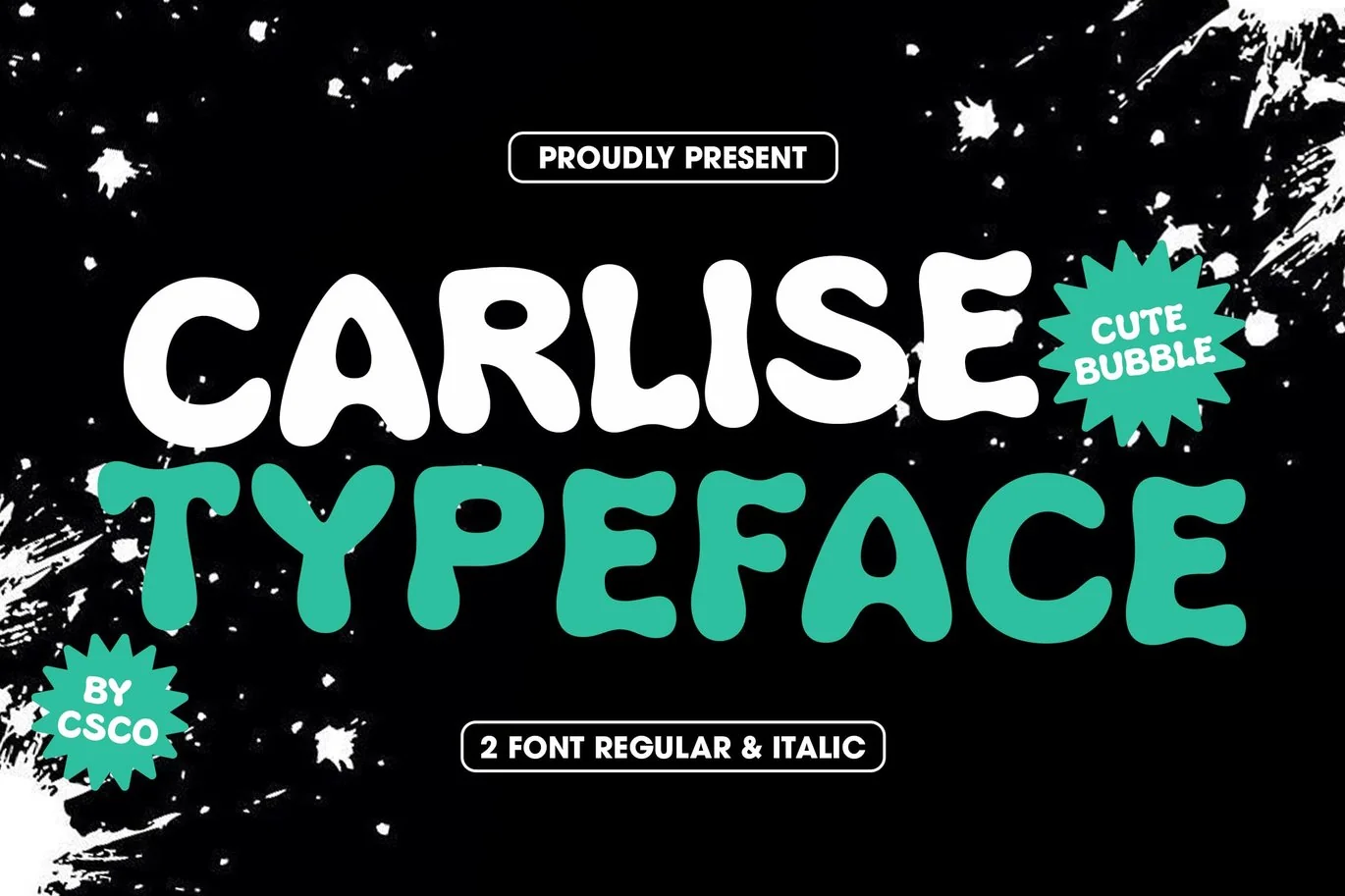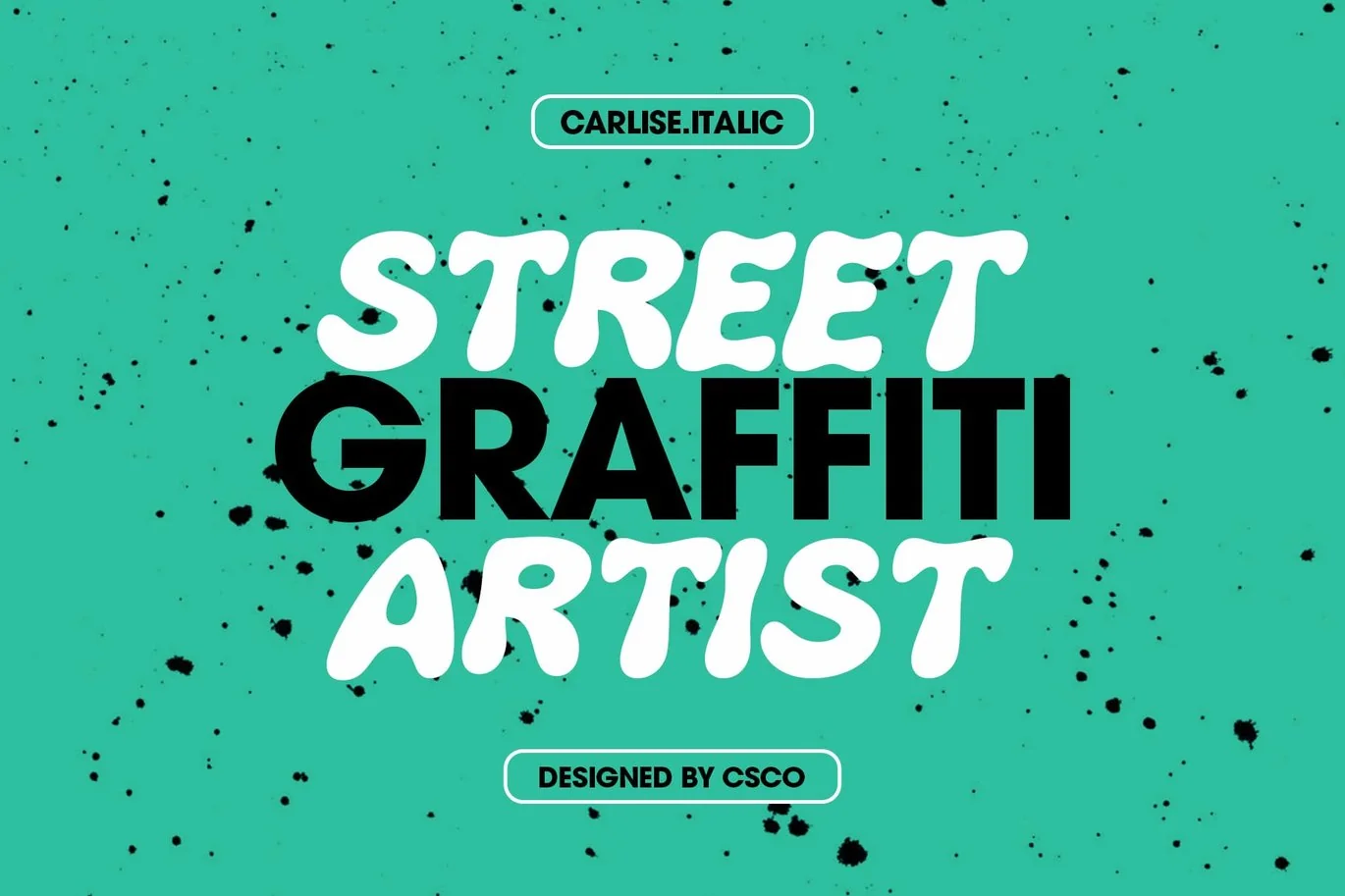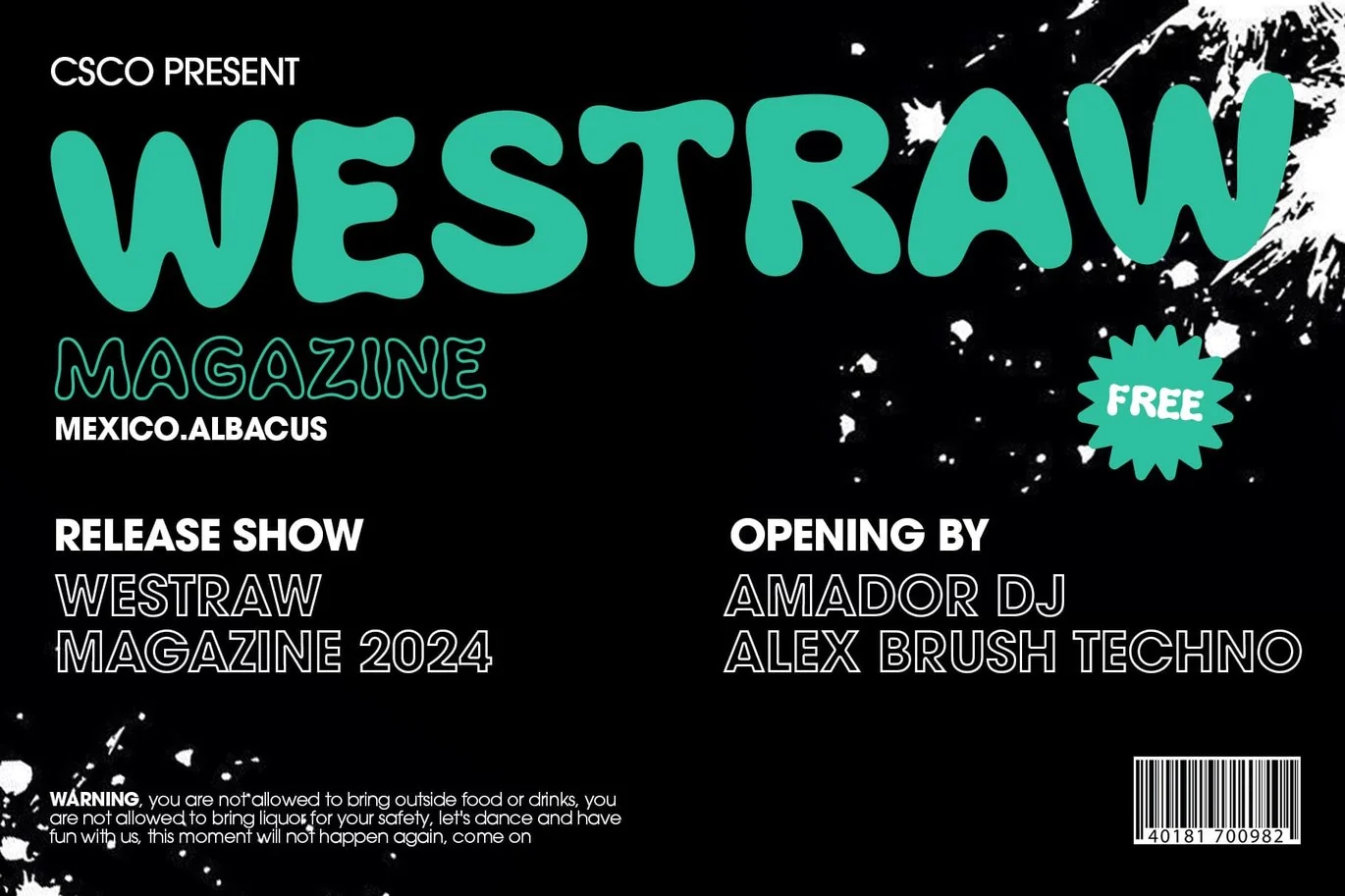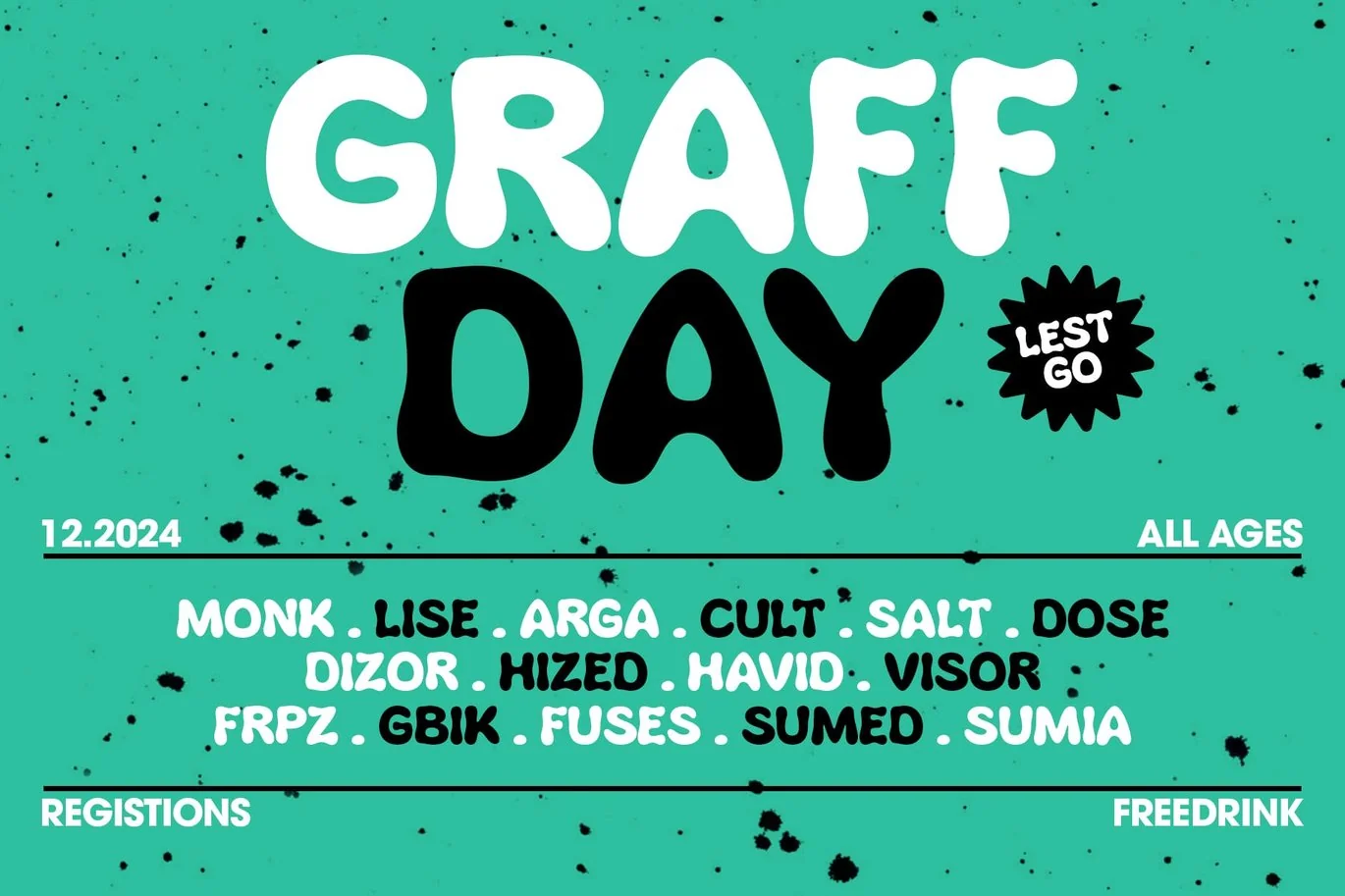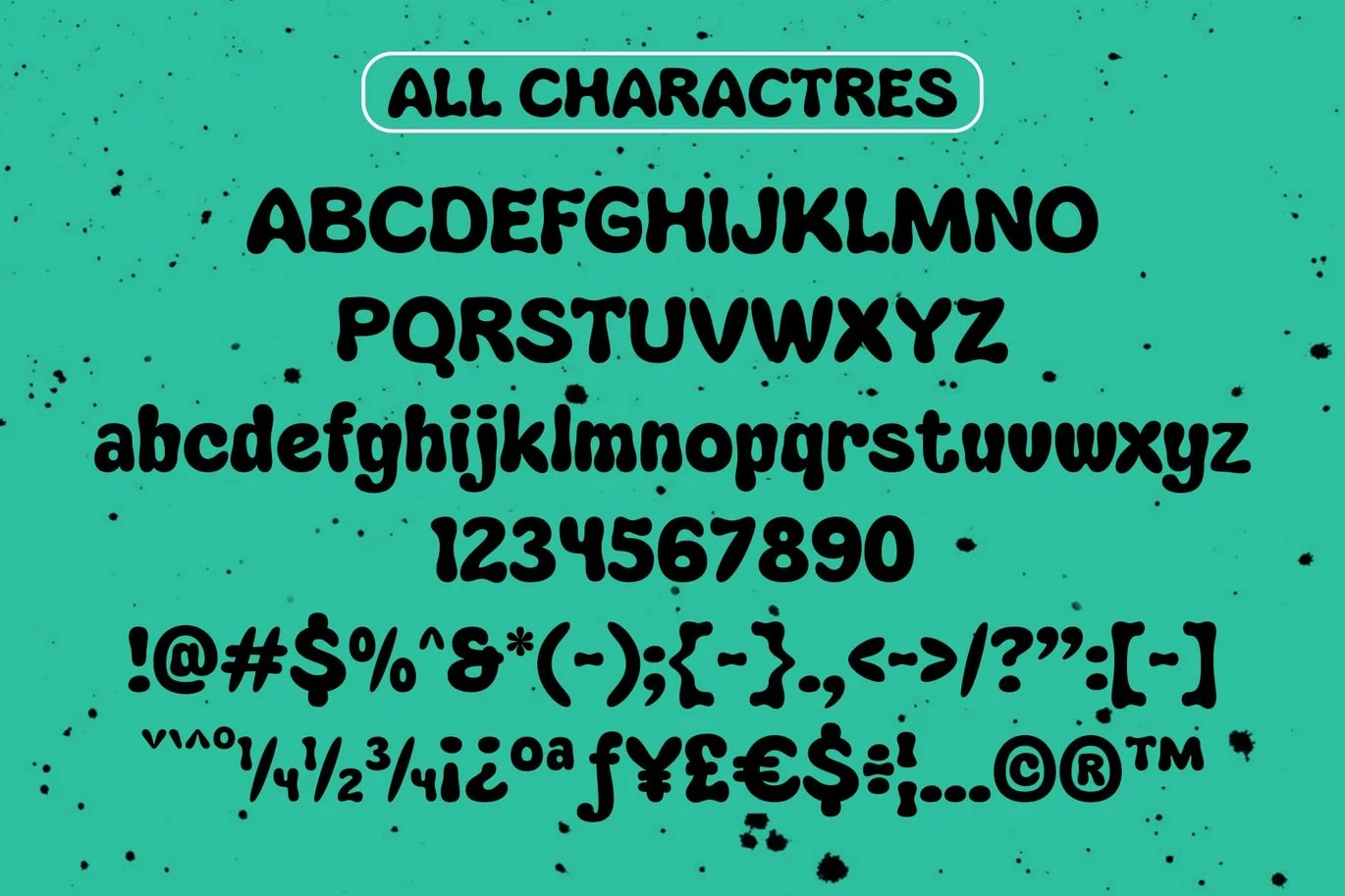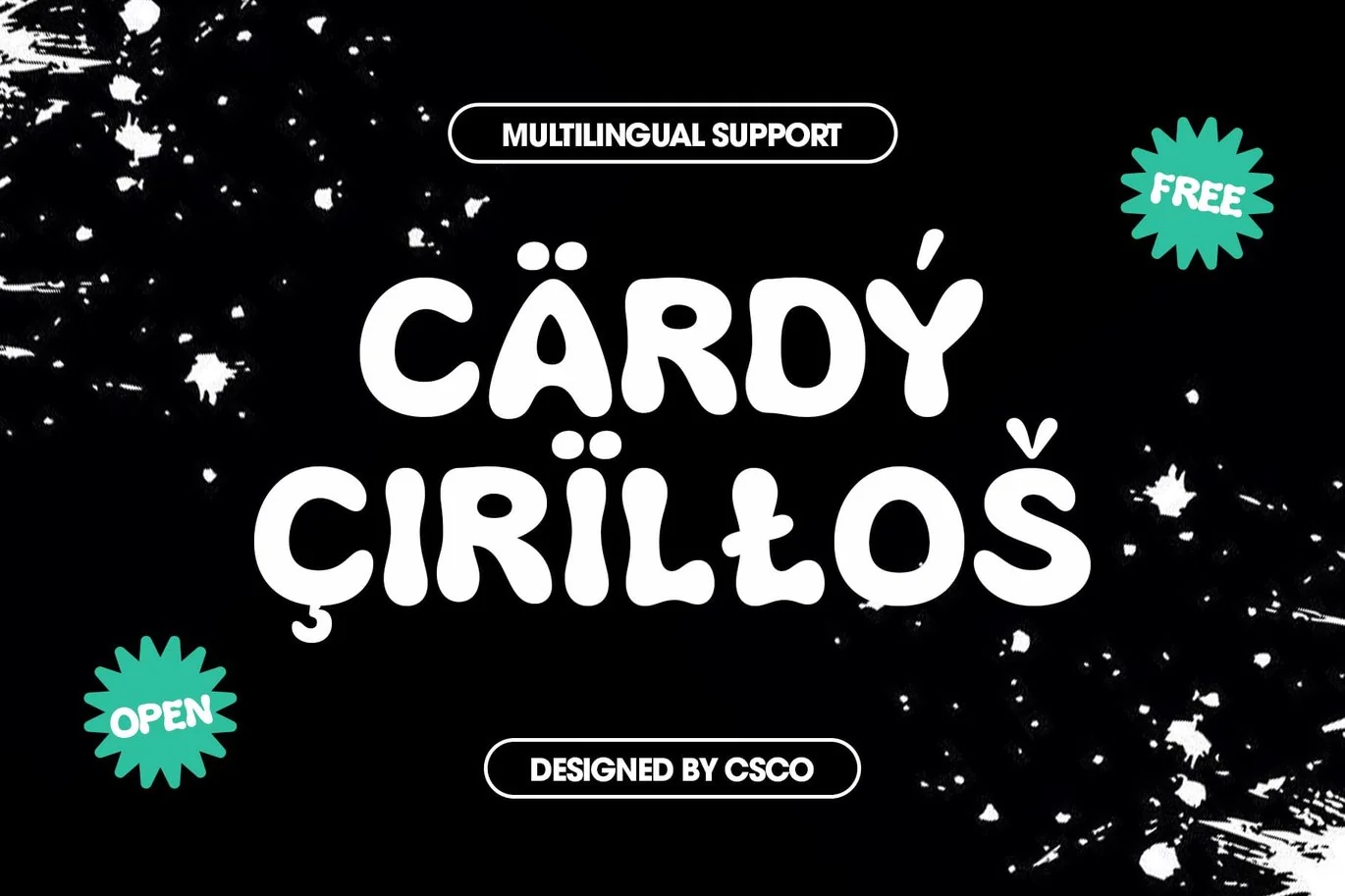
Carlise – Cute Font
Captivating Innocence: Carlise – Cute Font for Kids’ Designs
Adorable Aesthetics
Carlise, an enchanting display font, radiates playfulness, making it the perfect choice for designing materials aimed at capturing the hearts of children.
Whimsical Typography
Incorporate a touch of whimsy into your projects with Carlise’s delightful characters, creating a visual language that resonates with the imaginative world of kids.
Vivid and Vibrant
Carlise adds vibrancy to every letter, transforming alphabets into charming companions that engage and entertain, ensuring your designs leave a lasting impact.
Conclusion
With Carlise, design becomes a journey into the fantastical realms of childhood. Embrace the cuteness, infuse fun, and watch your creations come to life with the innocence and charm of this adorable font.